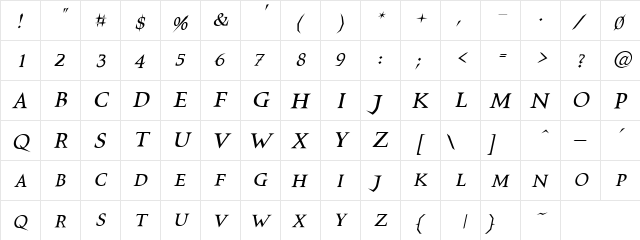
VTCSwitchbladeRomance Italic
Design Context for VTCSwitchbladeRomance Typeface
VTCSwitchbladeRomance is a composed and adaptable typeface that performs quietly and consistently across a wide range of design contexts. The dynamic lean of this cut emphasises speed and emphasis in any layout.